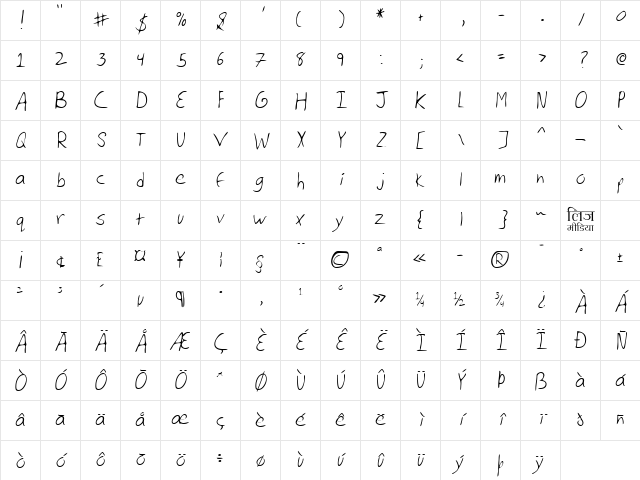
LEHN126 Regular Free Font
LEHN126 Regular
Design Context for LEHN126
LEHN126 is a composed and adaptable typeface that performs quietly and consistently across a wide range of design contexts.